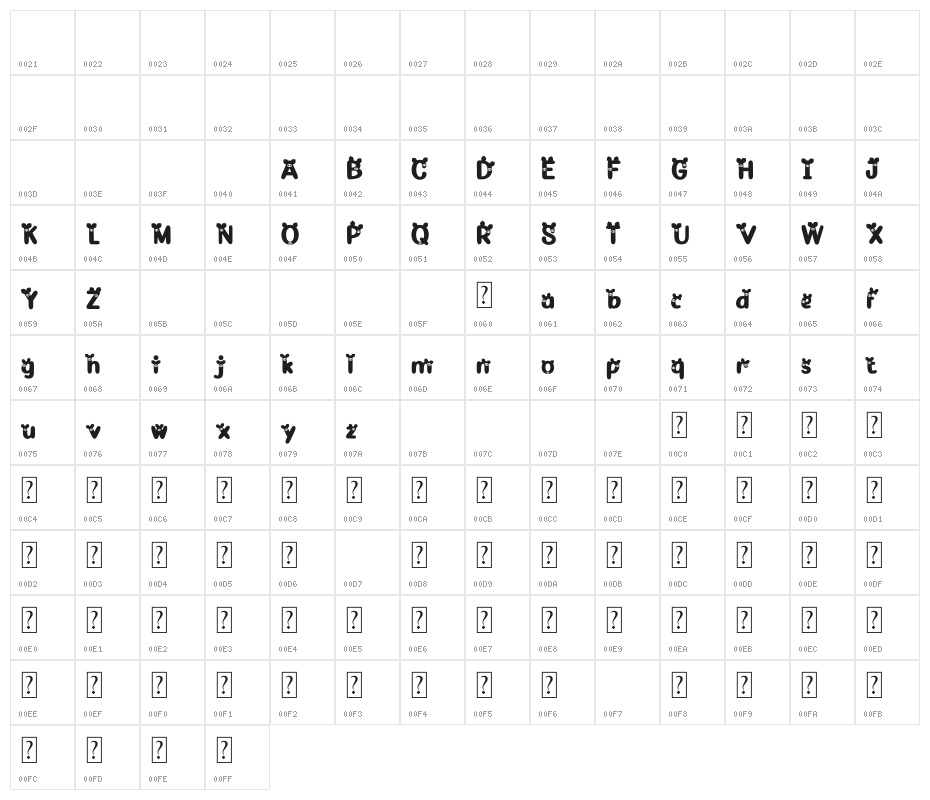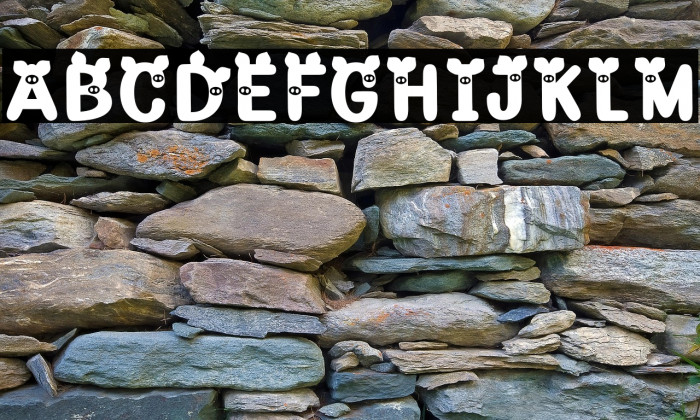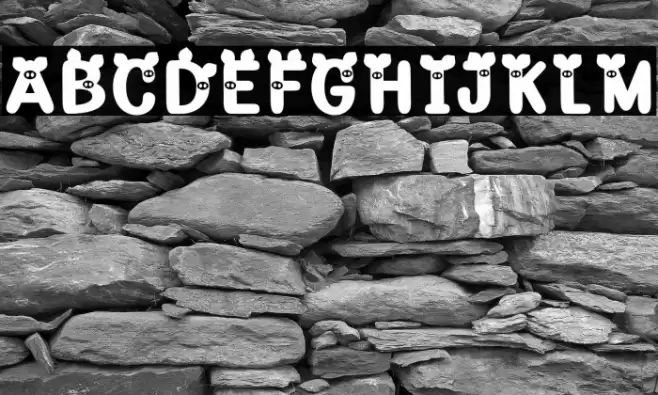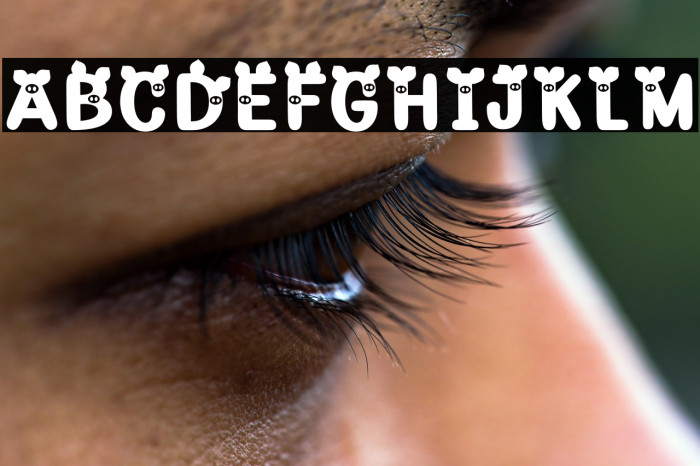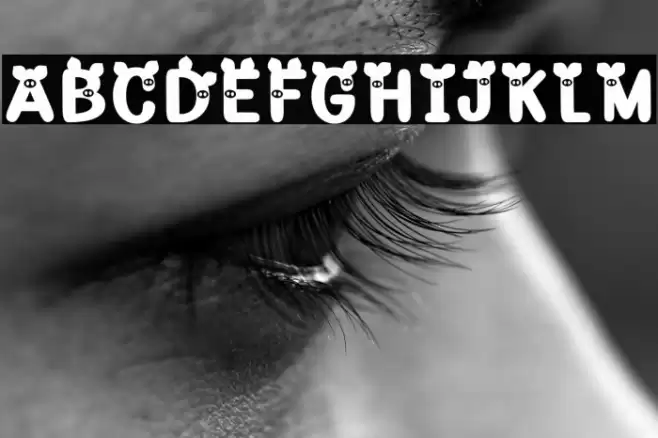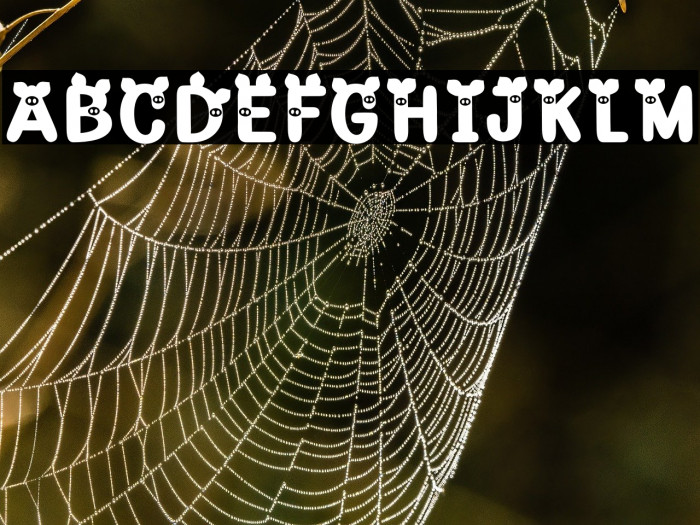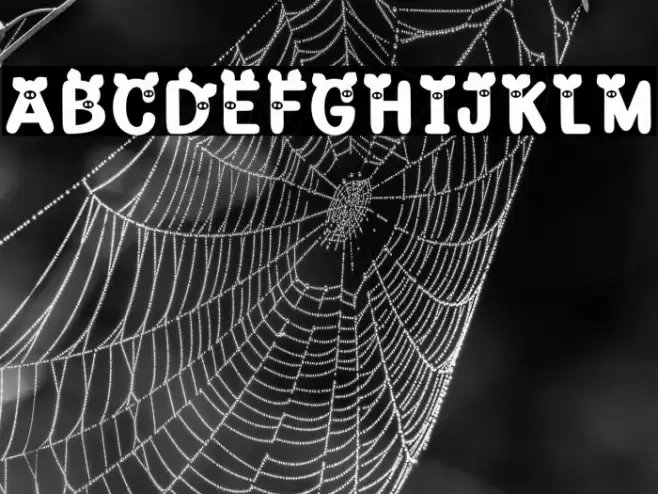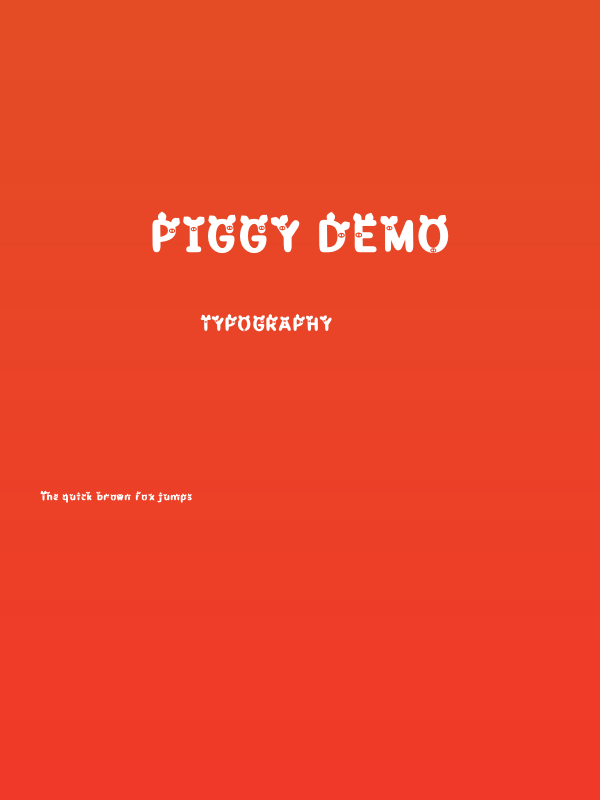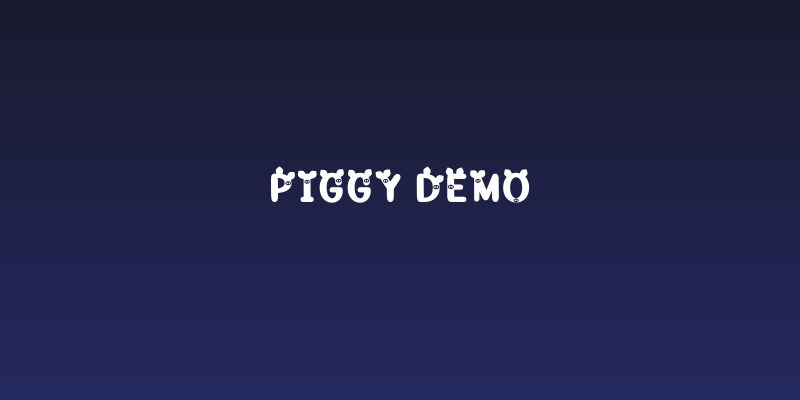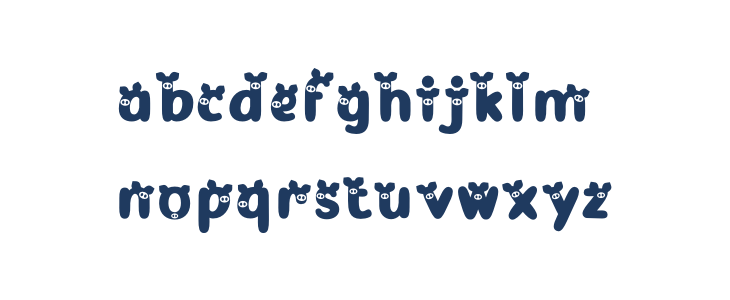
Piggy Demo Font
Piggy Demo Description
This playful and whimsical font features characters with pig-like faces incorporated into each letter, creating a unique and entertaining design. The bold, rounded shapes give it a friendly and approachable appearance, making it ideal for children's projects or playful branding. Each character is distinct, with pig ears and eyes adding a humorous touch. The font maintains consistency across uppercase and lowercase letters, ensuring readability while keeping the fun element intact. Its decorative nature makes it stand out, perfect for projects that require a lighthearted and engaging typeface.
| Proposed Projects | Ideal for children's books, playful branding, party invitations, and educational materials. |